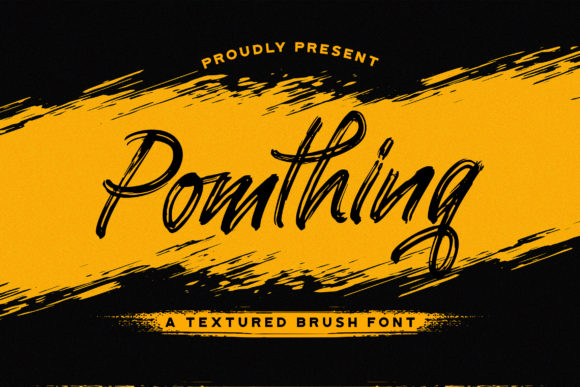
Step into a world of elegance and fluidity with Pomthinq, a brush script font that will ignite your creative spark. StringLabs, the font's creator, has poured their heart and soul into crafting this masterpiece, resulting in a font that is not just visually stunning, but also incredibly versatile.
Pomthinq's graceful strokes and sweeping curves will add a touch of sophistication and charm to any project. Its organic and expressive style is perfect for capturing the essence of handwritten notes, heartfelt letters, and eye-catching branding. Whether you're a designer, a blogger, or a creative entrepreneur, Pomthinq is the font that will elevate your designs to new heights.
With Pomthinq in your arsenal, you'll have the power to transform ordinary words into breathtaking works of art. Its carefully crafted glyphs and ligatures work seamlessly together, creating a cohesive and visually appealing flow. Each letter dances across the page, carrying with it a sense of movement and grace.
Whether you're working on a wedding invitation, a social media post, or a marketing campaign, Pomthinq will add a touch of magic to your words. Its ability to convey emotion and personality makes it the perfect choice for projects that require a human touch.